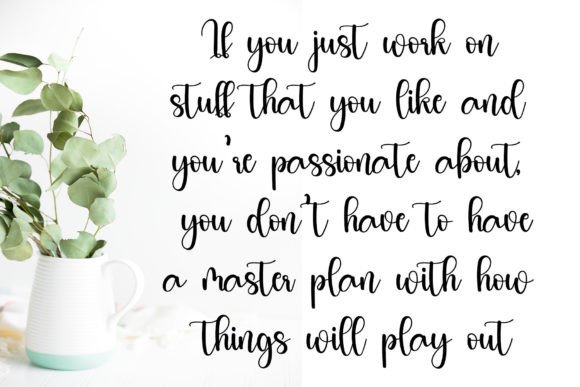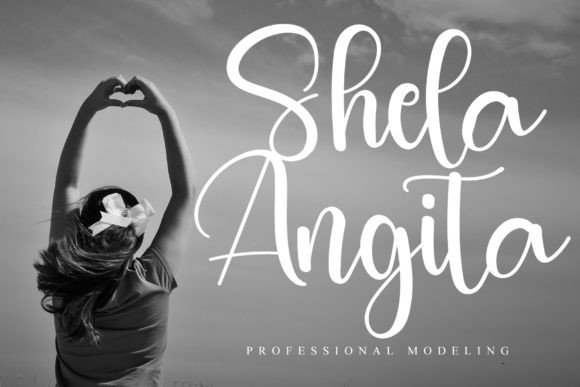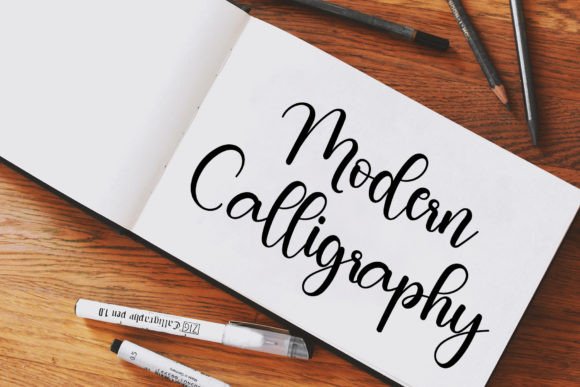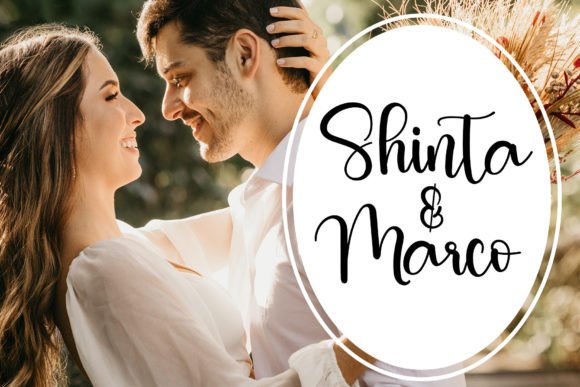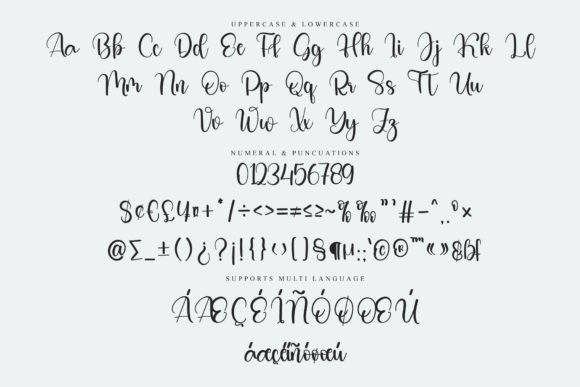
Introducing Blister Font: The Sweet and Cursive Handwritten Font for Your Design Needs
Are you looking for a font that can add a touch of sweetness and romance to your designs? Look no further than Blister Font, a beautiful cursive handwritten font that is perfect for a variety of design projects. In this article, we’ll take a closer look at Blister Font, its features, and how you can use it to elevate your designs.
What is Blister Font?
Blister Font is a sweet and cursive handwritten font that is designed to add a touch of elegance and sophistication to your designs. Its gentle curves and flowing lines make it perfect for creating beautiful and eye-catching designs that will capture the attention of your audience. Whether you’re working on a branding project, a wedding invitation, or a marketing promotion, Blister Font is the perfect choice.
Features of Blister Font
Blister Font comes with a range of features that make it a versatile and practical choice for designers. Some of its key features include:
- Sweet and Cursive Design: Blister Font has a beautiful cursive design that is both sweet and elegant. Its flowing lines and gentle curves make it perfect for creating romantic and feminine designs.
- Handwritten Style: Blister Font has a handwritten style that gives it a personal and unique touch. It’s perfect for creating designs that look like they were written by hand.
- Versatile: Blister Font is a versatile font that can be used for a variety of design projects, including branding, logos, wedding invitations, greeting cards, fashion designs, and more.
Use Cases for Blister Font
Blister Font is a versatile font that can be used for a wide range of design projects. Here are some use cases where Blister Font is particularly effective:
- Branding: Blister Font is perfect for creating beautiful and memorable brand identities. Its elegant design makes it perfect for creating logos, business cards, and other branding materials.
- Wedding Invitations: Blister Font is a popular choice for wedding invitations, thanks to its romantic and elegant design. It’s perfect for creating beautiful and memorable wedding stationery.
- Greeting Cards: Blister Font is also perfect for creating greeting cards, including birthday cards, Valentine’s Day cards, and more.
- Fashion Designs: Blister Font is a great choice for fashion designers who want to create beautiful and eye-catching designs. It’s perfect for creating lookbooks, fashion magazines, and more.
- Marketing Promotions: Blister Font can also be used for marketing promotions, including flyers, brochures, and more.
Why Choose Blister Font?
There are many reasons why you should choose Blister Font for your design projects. Here are a few:
- Unique Design: Blister Font has a unique and elegant design that will set your designs apart from the competition.
- Easy to Read: Blister Font is easy to read, even at small sizes, making it perfect for a variety of design projects.
- Versatile: Blister Font is a versatile font that can be used for a wide range of design projects.
In conclusion, Blister Font is a beautiful and versatile cursive handwritten font that is perfect for a variety of design projects. Its sweet and elegant design makes it perfect for creating romantic and feminine designs that will capture the attention of your audience. Whether you’re working on a branding project, a wedding invitation, or a marketing promotion, Blister Font is the perfect choice. So why wait? Download Blister Font today and start creating beautiful designs that will leave a lasting impression!